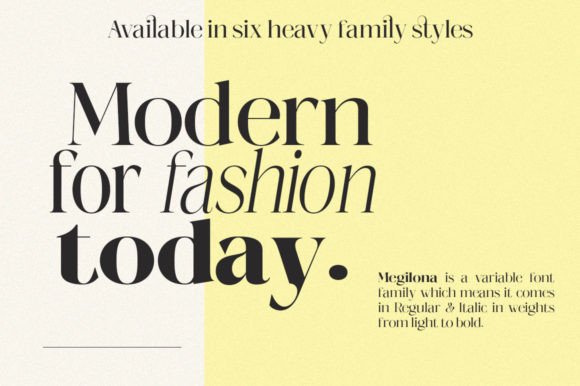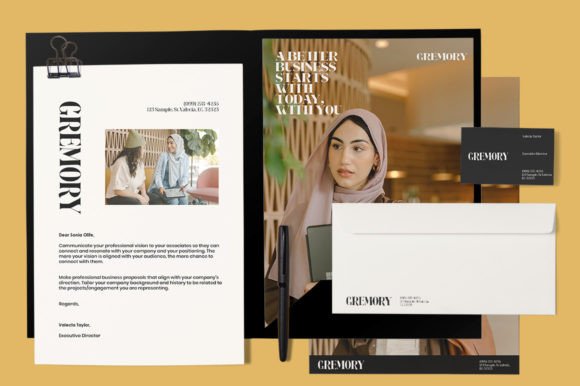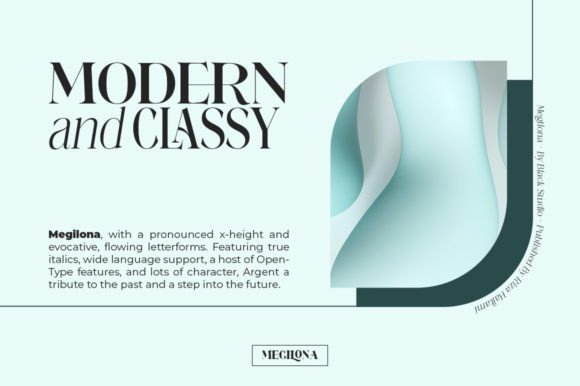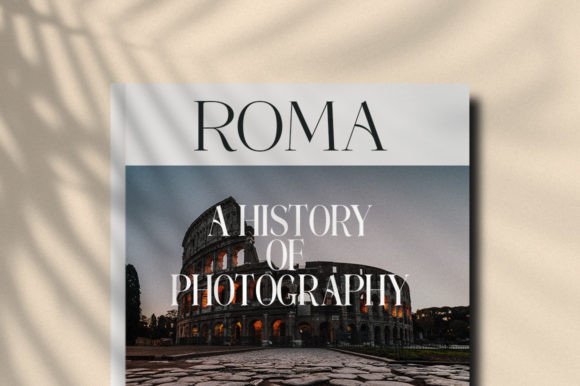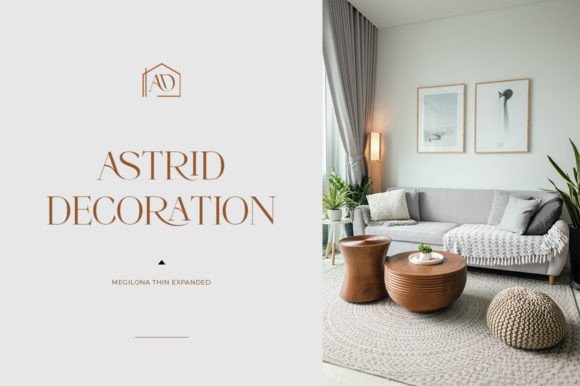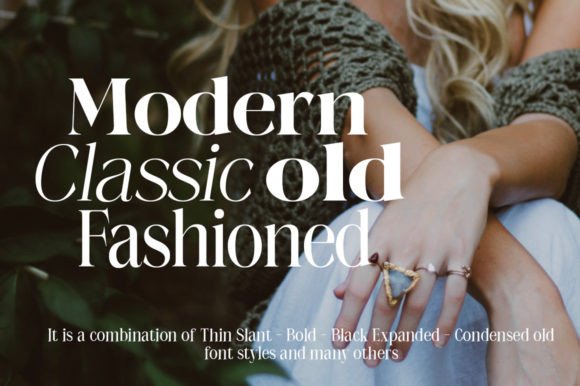
Introduction to Megilona Font
Megilona is a typeface that is feminine, adaptable, aesthetically contemporary, and creates limitless variety for your creative needs.
| 👤 Author | Black Studio |
Its striking contrasts and subtle details, together with luxurious strokes and voluptuous curves, create a beautiful and powerful statement for any typographic composition, blending glamor with contemporary aesthetics Megilona really helps you create unlimited variations for your creative needs in making your project titles: such as Books, fashion, magazines, logos, branding, photography, invitations, wedding invitations, quotes, blog headers, posters, advertisements, postcards, books, websites, etc.